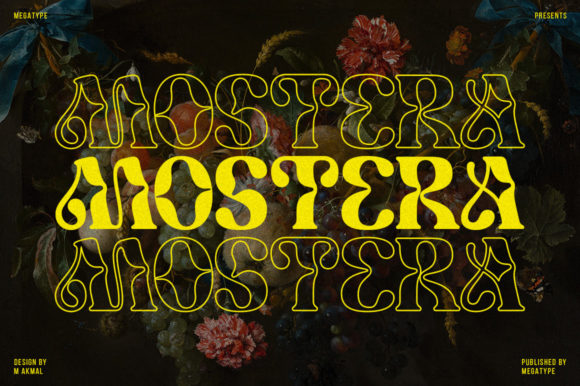
Feast your eyes on Mostera, a display font that's as captivating as a tropical rainforest. Dive into its lush curves and intricate details, and let your creativity soar. Let Mostera be the muse that inspires your next masterpiece, whether it's a wedding album, fashion branding, or editorial design.
With Mostera, you'll create designs that speak volumes without uttering a word. Its smooth, sweeping lines evoke a sense of elegance and sophistication, while its playful personality adds a touch of whimsy and charm. Mostera is the perfect choice for those who want to make a statement and leave a lasting impression.
Unlock your creative potential with Mostera and embark on a journey of artistic expression. Let its beauty captivate your audience and elevate your designs to new heights. Don't just take our word for it—experience the magic of Mostera for yourself and witness the transformation it brings to your creative endeavors.